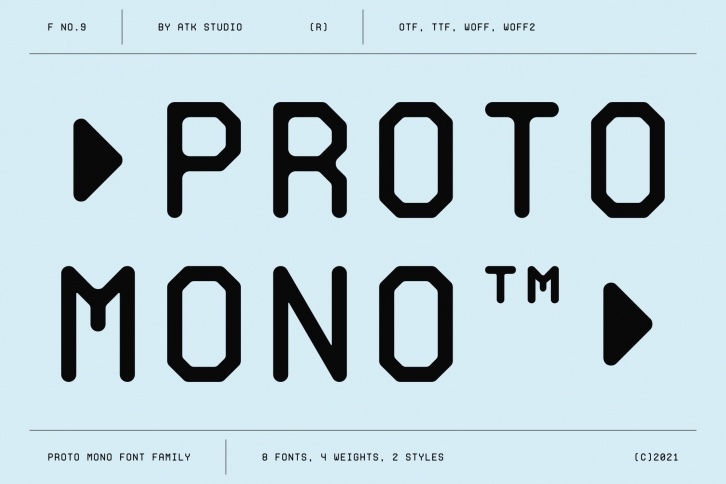
Proto Mono is a tech-monospaced typeface with ink-trap experiment and diagonal edges. It was created for tech display poster, informational video display, ads, and more futuristic designs.